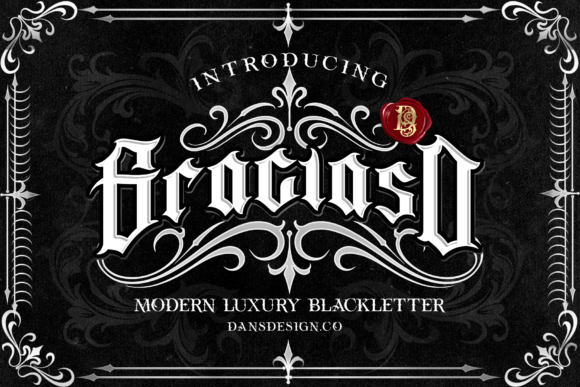
Journey into the Realm of Darkness with Graciaso: Your Death Metal Font Weapon
Unleash the primal fury of your music with Graciaso, the ultimate blackletter font, custom-crafted for the death metal genre. Feel the raw power surge through your veins as you witness the imposing presence of this font, commanding attention with its uniquely shaped letters.
Embrace the Darkness, Unleash Your Sonic Assault
Graciaso is more than just a font; it's a weapon, ready to strike fear into the hearts of your listeners. With its intricate details and bold strokes, this font will slice through the noise, leaving a trail of sonic devastation in its wake. Prepare to unleash a torrent of headbanging riffs and earth-shattering growls, as Graciaso becomes the perfect conduit for your musical onslaught.
Dare to Be Different, Embrace the Unique
In a world of conformity, Graciaso stands as a defiant beacon of originality. Its distinct character defies the norms, inviting you to break free from the mundane and embrace the extraordinary. Whether you're crafting album covers that ooze darkness or unleashing your fury on stage, Graciaso will ensure you leave an indelible mark on the metal scene.
Forged in Darkness, Destined for Greatness
Graciaso is not just another font; it's a testament to the enduring power of darkness. It's a font that resonates with those who dare to embrace the shadows, those who find solace in the roar of distorted guitars and the thunderous pulse of drums. With Graciaso by your side, you'll forge a path of sonic destruction, leaving audiences in awe of your musical prowess.